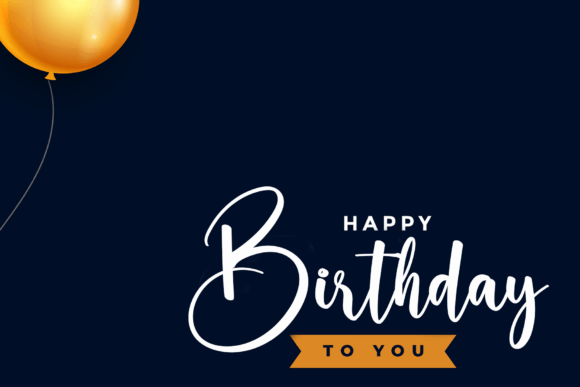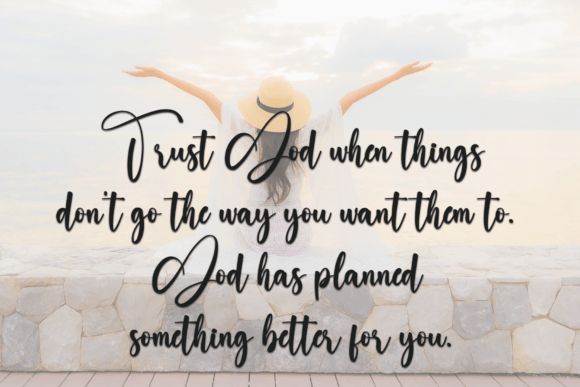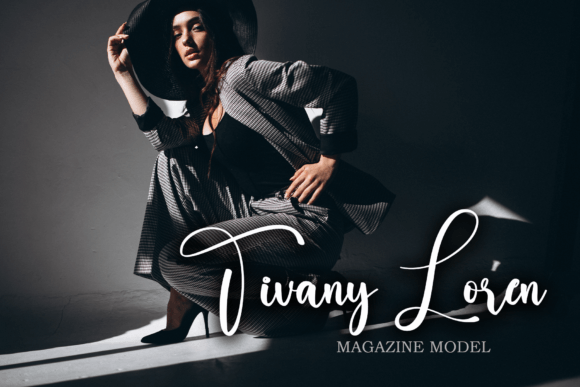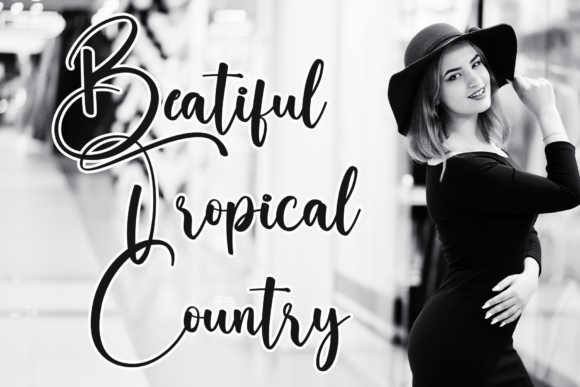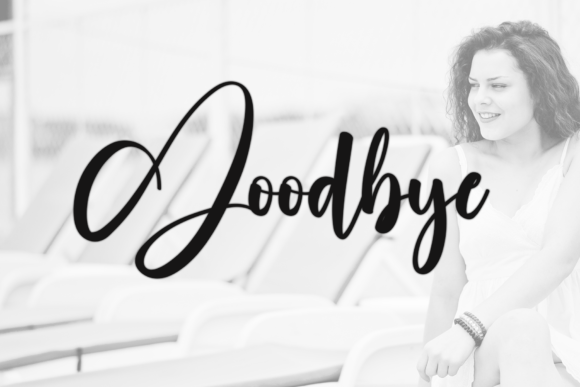
Introducing Christmas Font: A Timeless Handwritten Delight
Are you looking for a font that captures the essence of the holiday season? Or perhaps you want to add a touch of festive flair to your designs? Look no further than Christmas Font, a lovely and timeless handwritten font that’s perfect for creating eye-catching logos, branding, and quotes.
A Unique and Beautiful Touch
What sets Christmas Font apart from other fonts is its unique and beautiful touch. Every letter has been carefully crafted to bring a sense of joy and festivity to your designs. Whether you’re working on a holiday-themed project or simply want to add some seasonal charm to your branding, Christmas Font is the perfect choice.
Christmas Font is a versatile font that’s perfect for designers and crafters alike. With its elegant and cursive script, it’s ideal for creating:
- Eye-catching logos and branding
- Festive holiday cards and invitations
- Beautiful quotes and typography
- Seasonal crafts and DIY projects
Why Choose Christmas Font?
So why choose Christmas Font over other fonts? Here are just a few reasons:
- Unique and handmade**: Christmas Font is a one-of-a-kind, handmade font that’s been carefully crafted to bring a touch of personality to your designs.
- Easy to read and use**: Despite its elegant script, Christmas Font is easy to read and use, making it perfect for a wide range of design projects.
- Festive and fun**: Let’s face it – Christmas Font is just plain fun! It’s the perfect way to add some holiday cheer to your designs and get into the seasonal spirit.
Tips for Using Christmas Font
Here are a few tips for getting the most out of Christmas Font:
- Use it sparingly**: Because Christmas Font is so elegant and eye-catching, it’s best to use it sparingly. Try using it for headings or key phrases to add a touch of festive flair to your designs.
- Experiment with colors and textures**: Christmas Font looks amazing in a wide range of colors and textures. Try experimenting with different combinations to find the perfect look for your design.
- Pair it with other fonts**: For a really unique look, try pairing Christmas Font with other fonts. A simple sans-serif font can provide a nice contrast to the elegant script of Christmas Font.
Key Features of Christmas Font
- Handwritten font with a unique and beautiful touch
- Perfect for creating eye-catching logos, branding, and quotes
- Elegant and cursive script
- Easy to read and use
- Festive and fun